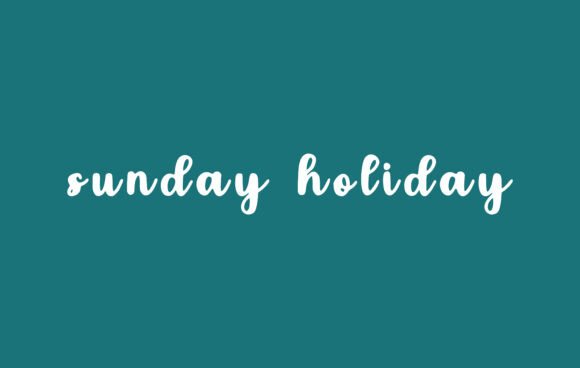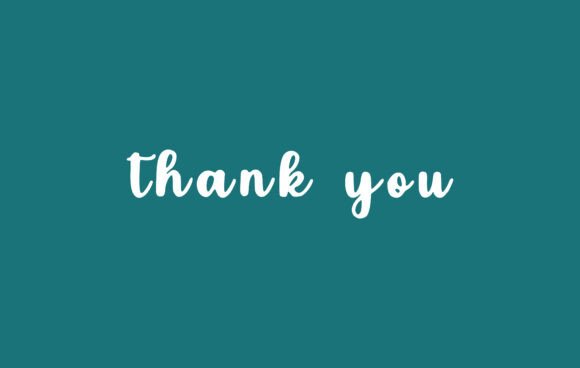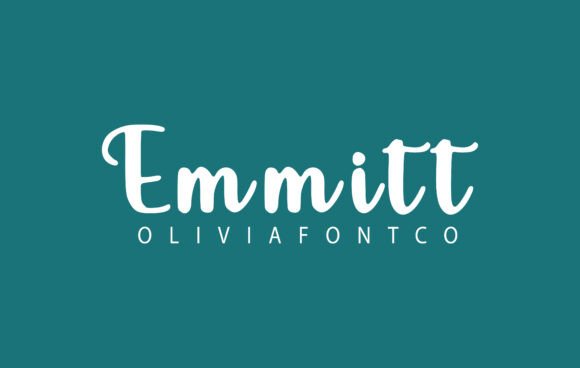
Introducing Emmitt Font: The Ultimate Handwritten Font for Creative Expression
Are you tired of using the same old fonts for your creative projects? Look no further than Emmitt Font, an authentic handwritten font with a romantic touch that’s sure to take your designs to the next level. Expertly crafted to be a true favorite among designers and crafters, Emmitt Font offers a unique blend of elegance and playfulness that’s perfect for a wide range of applications.
What Makes Emmitt Font So Special?
Emmitt Font is more than just a pretty face – it’s a versatile and highly legible font that’s designed to work beautifully as both a title and body text. Its flowing script and subtle imperfections give it a warm, organic feel that’s reminiscent of handwritten text from a bygone era. Whether you’re looking to create stunning magazine headlines, eye-catching social media graphics, or beautiful wedding invitations, Emmitt Font is the perfect choice.
One of the things that sets Emmitt Font apart is its incredible versatility. With its elegant lines and charming personality, this font can be used in a wide range of design applications, including:
- Magazine headlines and articles
Why Designers and Crafters Love Emmitt Font
So what makes Emmitt Font so popular among designers and crafters? For starters, its unique and authentic handwritten style gives designs a personal touch that’s hard to replicate with more traditional fonts. Additionally, its high level of legibility makes it perfect for use in both print and digital applications. Plus, with its extensive character set and support for multiple languages, Emmitt Font is a great choice for designers working on international projects.
Tips for Getting the Most Out of Emmitt Font
To really make Emmitt Font shine, try pairing it with a complementary font or using it in combination with other design elements, such as photos or illustrations. You can also experiment with different colors and textures to add depth and interest to your designs. And don’t be afraid to get creative and try out new and innovative uses for this amazing font!
In conclusion, Emmitt Font is an exceptional handwritten font that’s sure to become a favorite among designers and crafters. With its romantic touch, elegant lines, and high level of legibility, it’s the perfect choice for a wide range of creative projects. Whether you’re looking to create stunning magazine headlines, beautiful wedding invitations, or eye-catching social media graphics, Emmitt Font is the ultimate tool for bringing your creative vision to life.